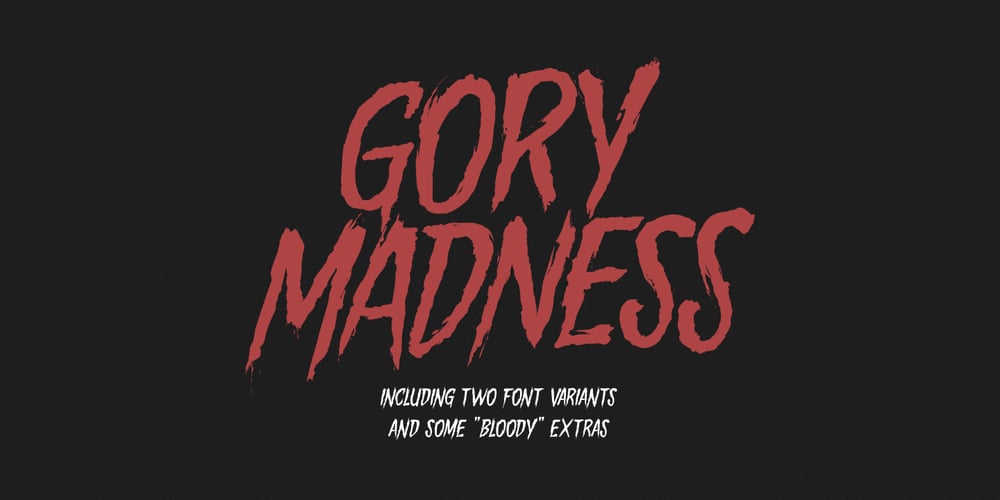
Gory Madness
Gory Madness font
Gory Madness Font Family was designed by Mirco Zuchowski and published by Mirco Zett. Gory Madness contains 5 styles and family package options. “Gory Madness” is a horror genre font, inspired by vintage movie posters from the 70s. Made for logos, headlines, apparel design etc.